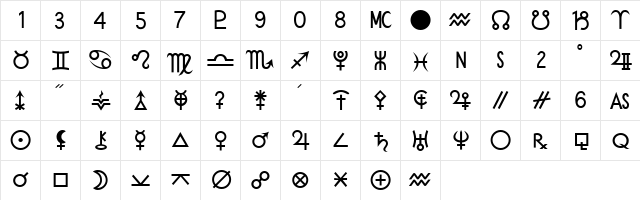
StarLightBold Medium
Design Context for StarLightBold Typeface
StarLightBold is a composed and adaptable typeface that performs quietly and consistently across a wide range of design contexts. The heavy weight commands attention and anchors typographic hierarchies.